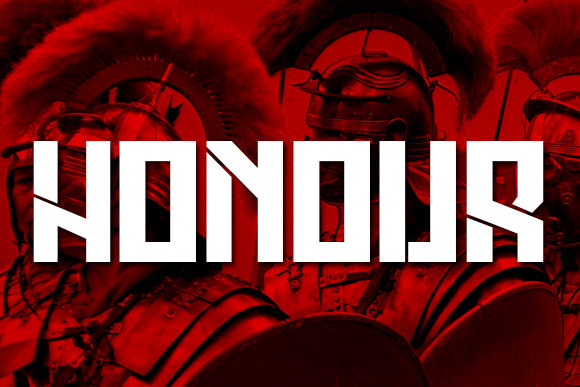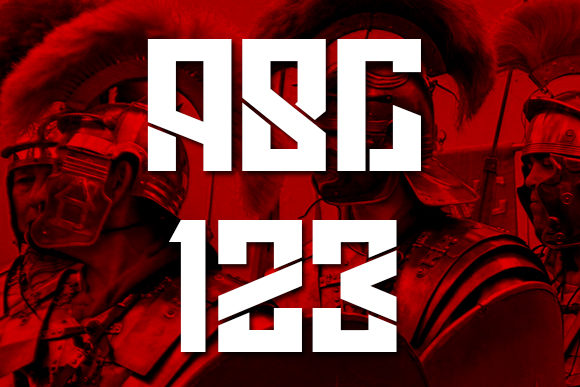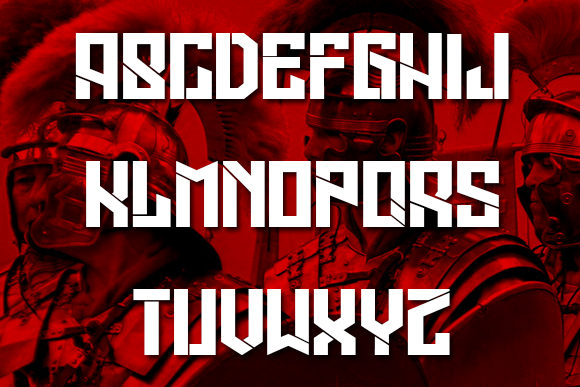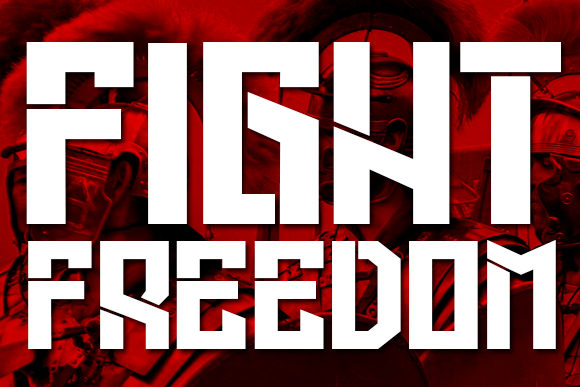
Introduction to Legionary Font
Have you ever found yourself stuck in a creative rut, searching for the perfect font to elevate your design project? You’re not alone. We’ve all been there, scrolling through endless font options, trying to find that one special something that brings our vision to life. For designers working on army-themed projects, the quest for the perfect font can be especially daunting. But what if I told you that your search is over? Enter the Legionary Font, a high-quality display font that’s about to revolutionize your design game.
With its bold, eye-catching style, Legionary Font is the ultimate design resource for any project that requires a touch of military flair. Whether you’re creating a logo, poster, or brochure, this font is sure to make a statement. And the best part? It’s available in both regular and condensed versions, giving you the flexibility to choose the perfect fit for your design.
Key Features of Legionary Font
- High-quality font designed for creative projects and professional use, suitable for various design resources.
- Legionary Font is a unique and versatile font, suitable for use in logos, branding, and other creative projects where a high-quality font is required.
Honest Review: Legionary Font
I recently came across the Legionary Font, a free download that caught my attention. As a designer, I appreciate high-quality fonts that can elevate a creative project. In this review, I’ll share my honest thoughts on this font.
- ✨ The Legionary Font has a unique, bold design that can add a touch of sophistication to any project.
- ⚠️ The font may not be suitable for small text, as it can become difficult to read.
- ⚠️ The design is quite bold, so it may not be the best fit for projects that require a more subtle look.
Overall, I’m impressed with the Legionary Font’s unique design and high-quality features. While it may have some limitations, it’s a great resource for designers looking to add some edge to their creative projects.
The Legionary Font is a high-quality design resource, perfect for creative projects that require a touch of elegance and sophistication. This font features a transparent background, making it versatile for various design applications.